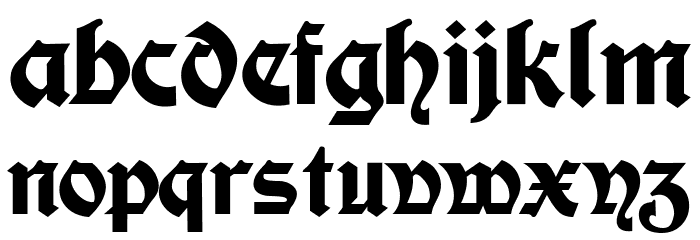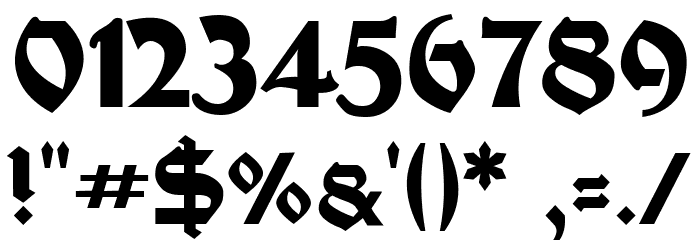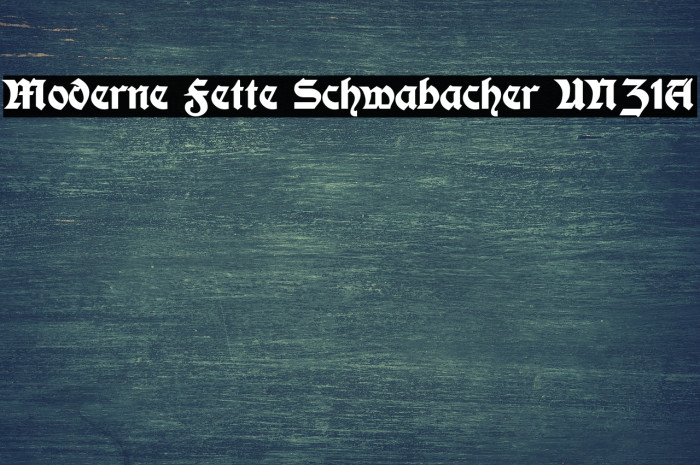
Moderne Fette Schwabacher UNZ1A Font
This font features a bold and striking blackletter style, characterized by its sharp, angular lines and intricate detailing. The uppercase letters exhibit a strong presence with their elaborate serifs and pointed edges, while the lowercase letters maintain a consistent style with slightly more rounded forms. The numerals are equally bold, maintaining the same angular aesthetic. Special characters are designed to complement the overall style, adding a cohesive look to the font. This typeface exudes a sense of tradition and historical significance, reminiscent of medieval script.
A bold blackletter font with sharp, angular lines and intricate detailing.
- Proposed Projects: Ideal for projects requiring a historical or traditional aesthetic, such as event posters, book covers, or branding for vintage-themed products.
- Overall Style: Vintage
- Use Case: Headlines, Logos, Decorative purposes